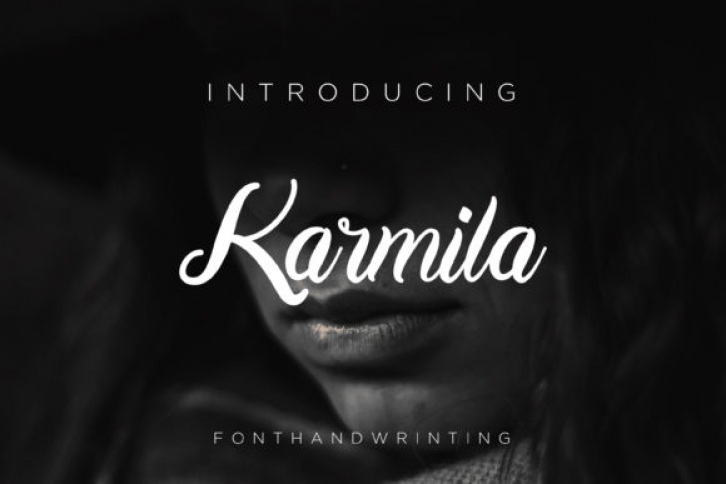
Karmila is a unique and modern script font with a dynamic style. Use it to add a splash of authenticity to a wide range of design ideas, ranging from headlines, branding to DIY projects!